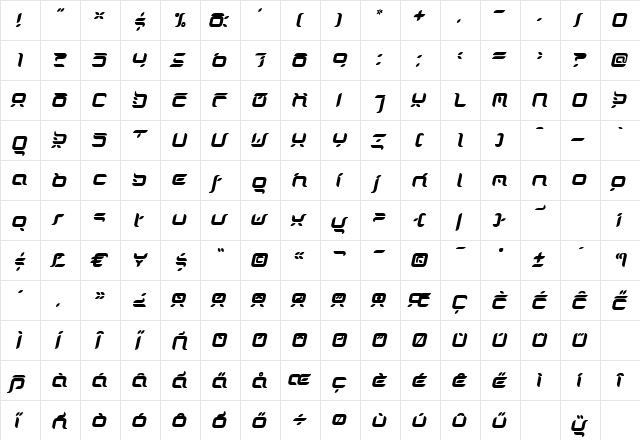
Doris OrangeItalic Regular
Design Context for Doris OrangeItalic Typeface
Doris OrangeItalic is a composed and adaptable typeface that performs quietly and consistently across a wide range of design contexts. The dynamic lean of this cut emphasises speed and emphasis in any layout.
Pro Tip: Try Doris OrangeItalic for annotation and caption copy alongside an upright companion — the contrast in angle creates a dynamic but ordered typographic system.